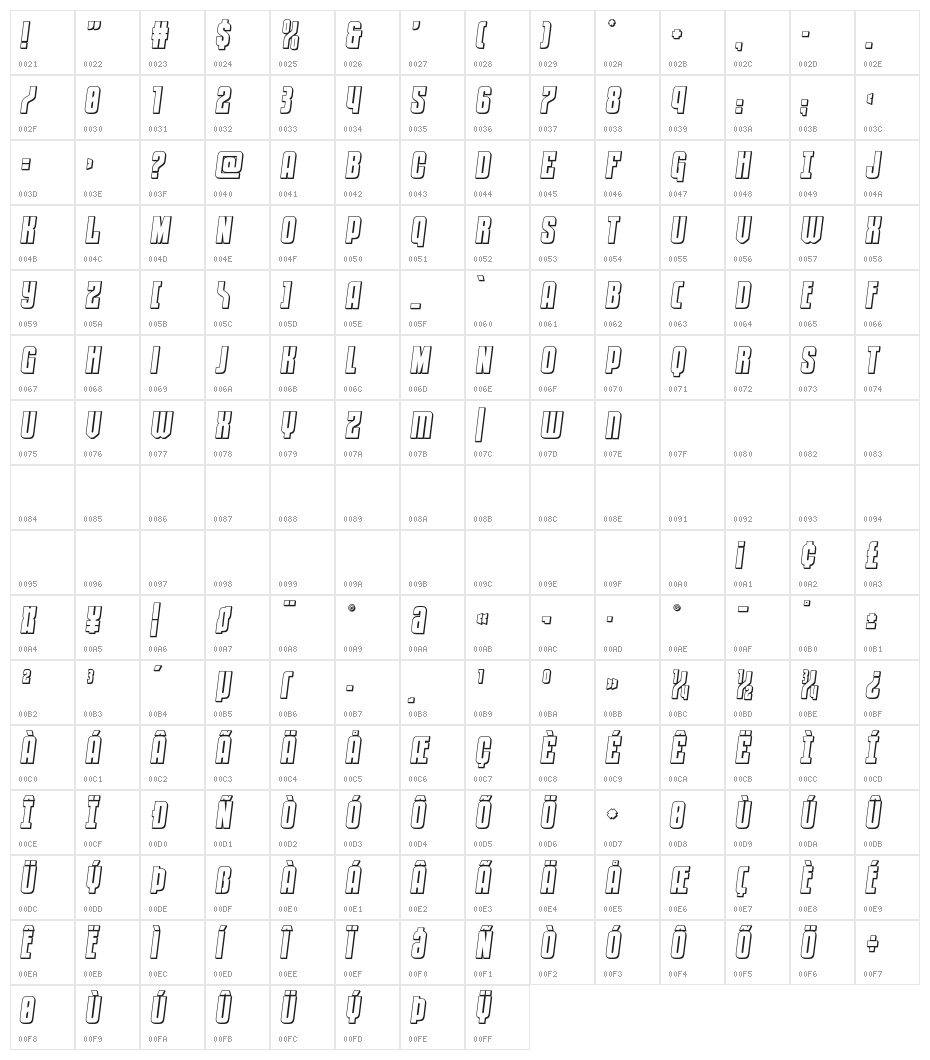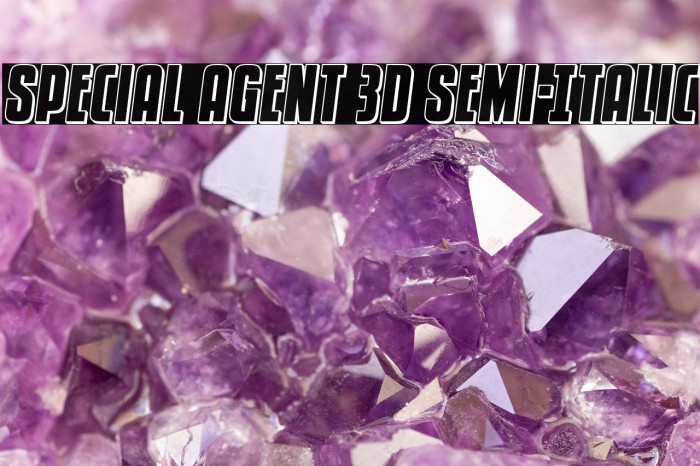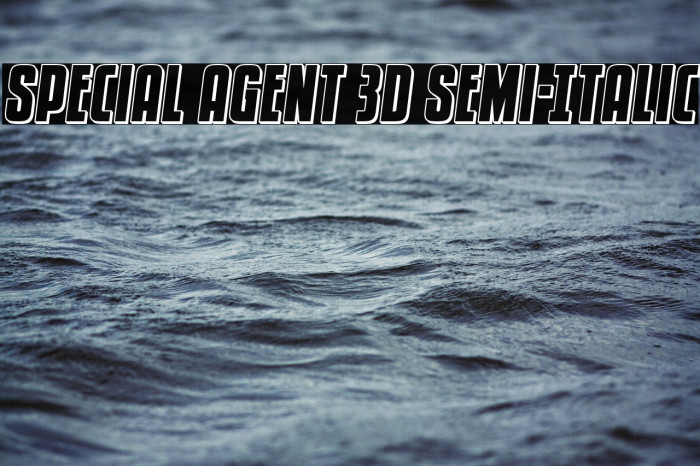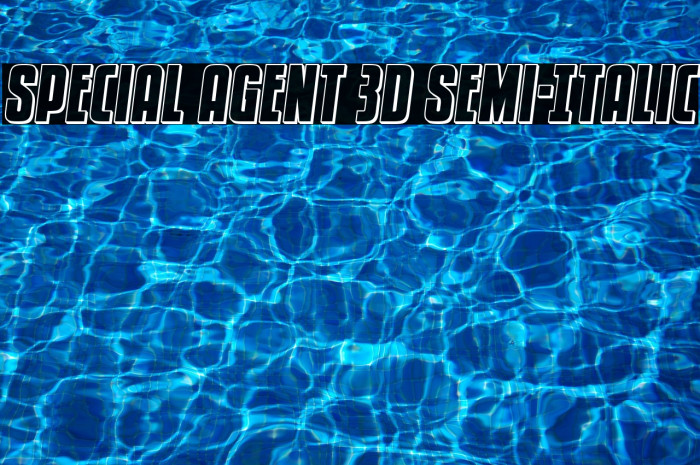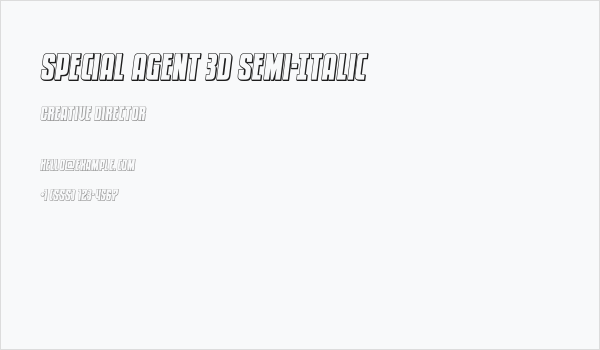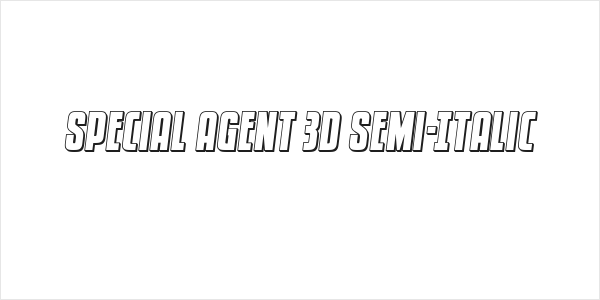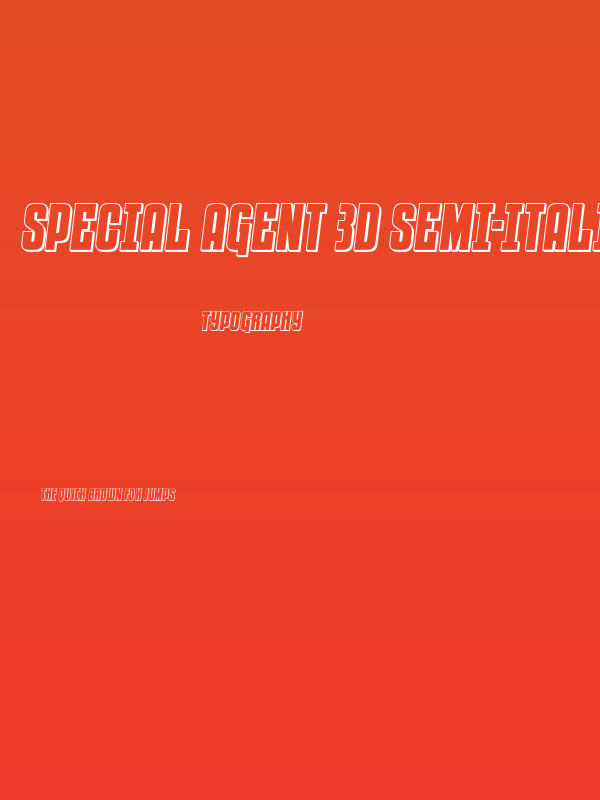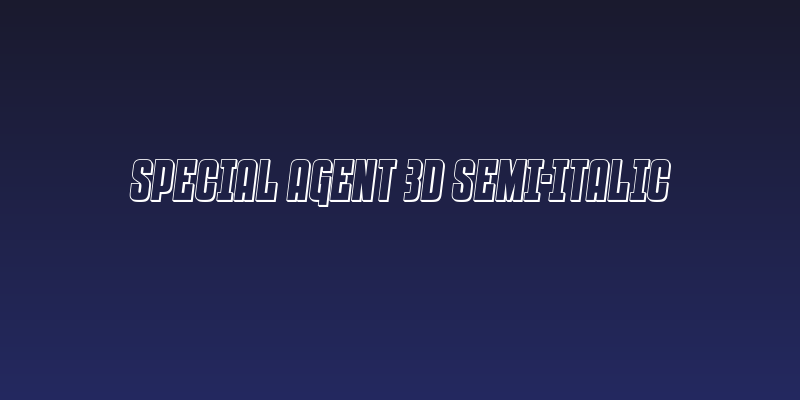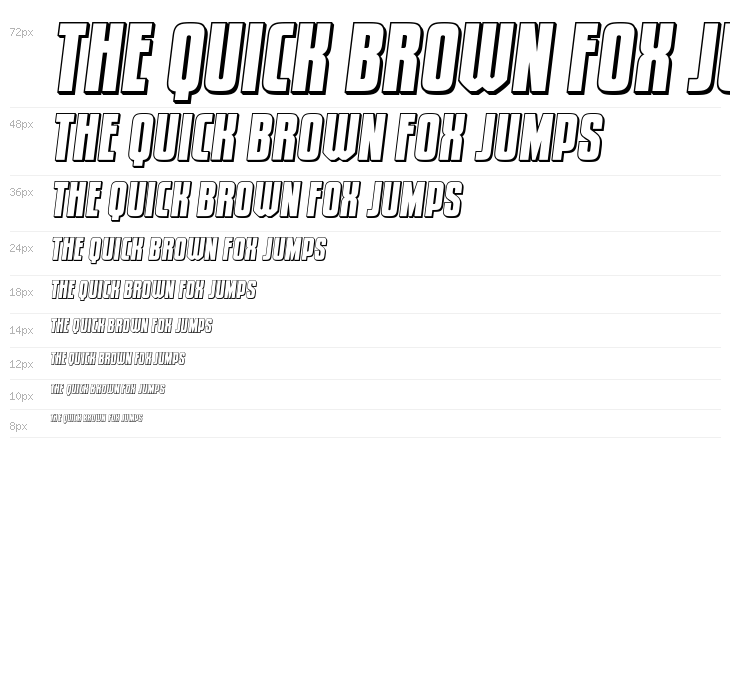
Special Agent 3D Semi-Italic Font
Special Agent 3D Semi-Italic Description
This font features a bold, three-dimensional appearance with a semi-italic slant, giving it a dynamic and impactful look. The characters are outlined, adding depth and a sense of movement. The uppercase and lowercase letters maintain a consistent style, with sharp angles and clean lines. The numerals and special characters follow the same design principles, ensuring uniformity across all glyphs. This font is ideal for projects that require a strong visual presence and a modern, edgy aesthetic.